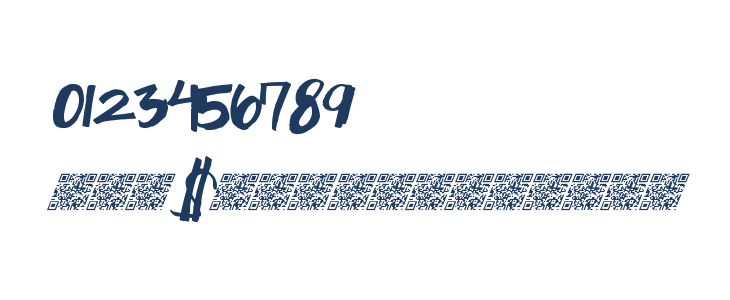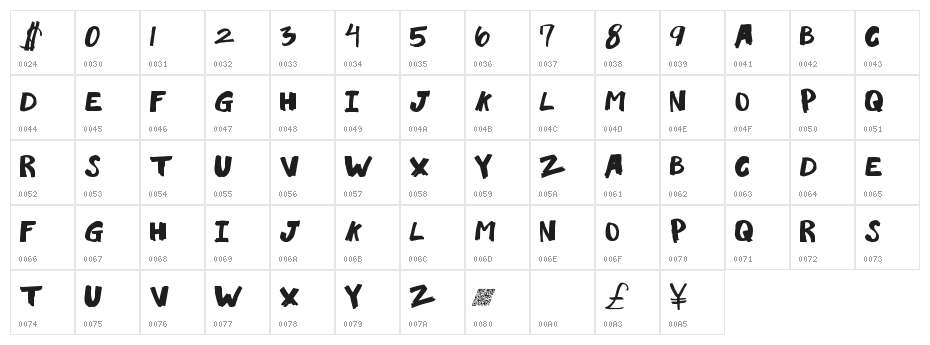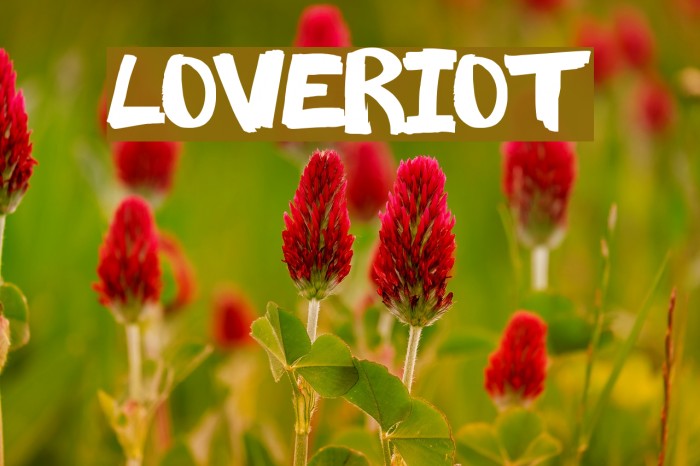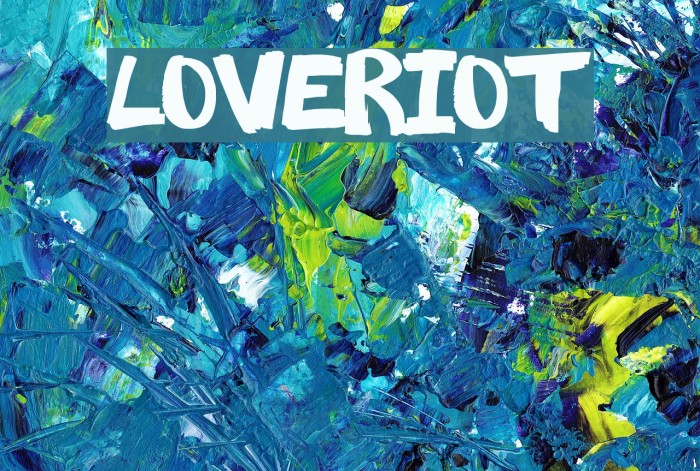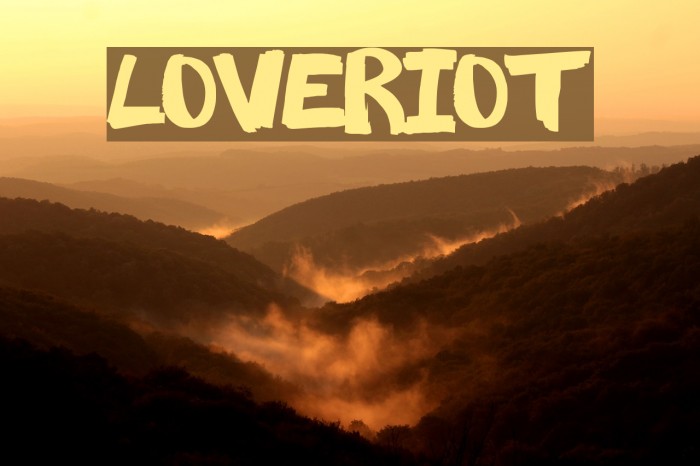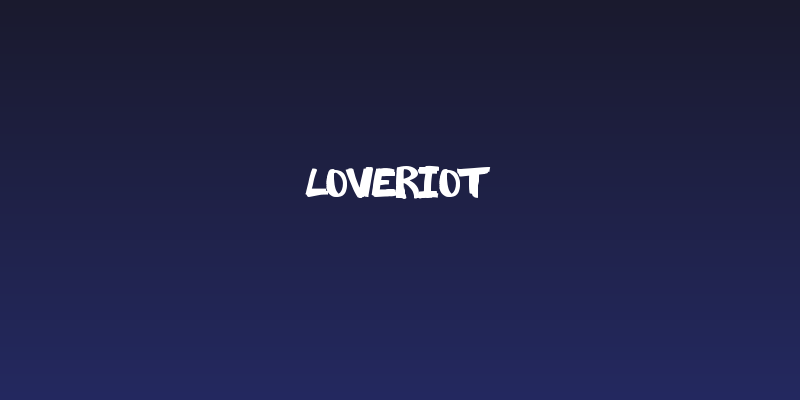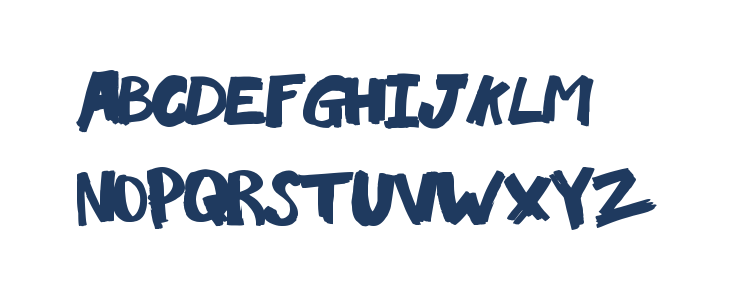
LoveRiot Font
This font exudes a bold, rebellious energy with its thick, brush-like strokes and dynamic, uneven edges. The uppercase and lowercase letters maintain a consistent, energetic style, characterized by their hand-drawn appearance. The numbers and special characters follow suit, adding to the font's overall cohesive look. Its raw, expressive nature makes it ideal for projects that require a touch of edginess and creativity. The font's design suggests movement and spontaneity, making it perfect for eye-catching headlines or artistic designs.
| Overall Style | Modern, Artistic |
| Proposed Projects | Ideal for posters, album covers, streetwear branding, and graffiti-inspired designs. |